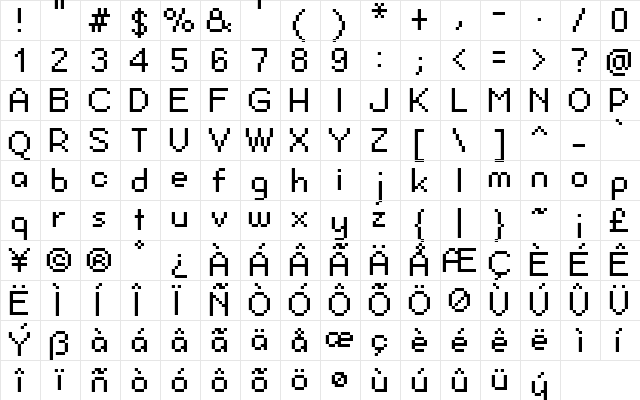
FFF Harmony with PL Regular
Design Context for FFF Harmony with PL Typeface
FFF Harmony with PL takes a measured approach to typography — its balanced proportions and neutral character make it a reliable workhorse for both digital and print work.